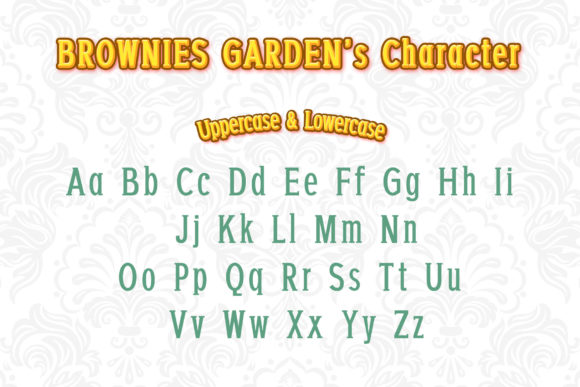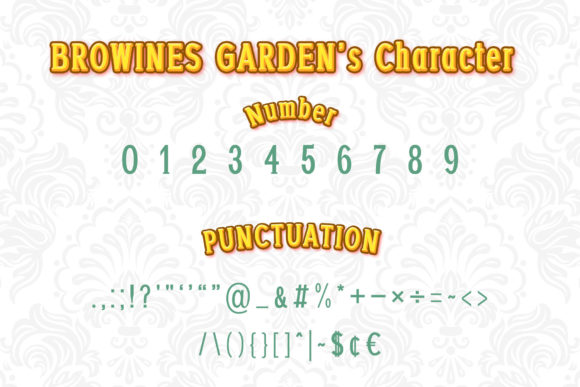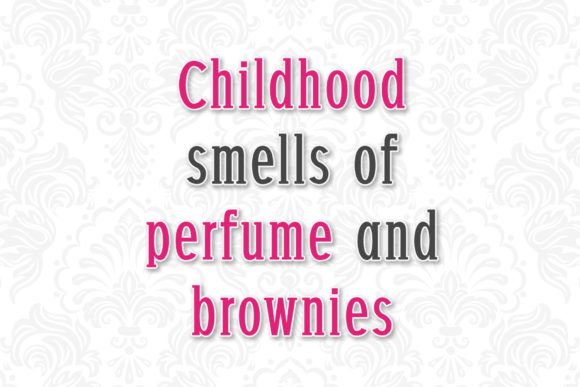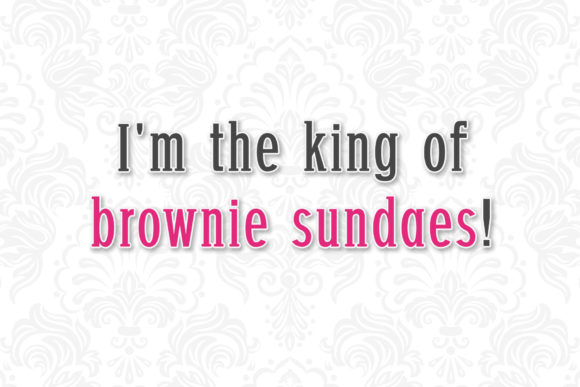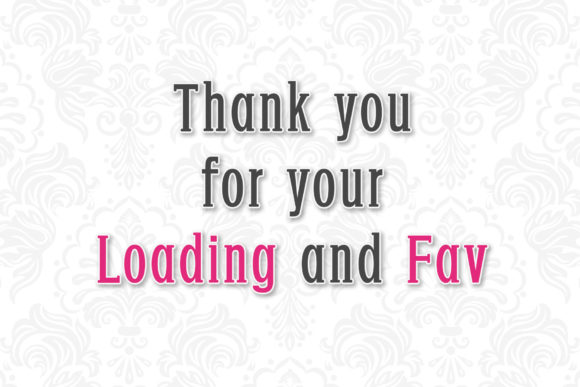
The Perfect Font for Your Creative Projects: Brownies Garden
I’ll never forget the time I was working on a project for a client who wanted a elegant and sophisticated look. I had spent hours browsing through font libraries, but nothing seemed quite right. That was until I stumbled upon Brownies Garden, a neat and elegant serif font that perfectly captured the essence of my client’s vision. In this article, I’ll share my experience with Brownies Garden, its features, and how to make the most of it in your creative projects.
A Personal Review of Brownies Garden
- ✨ Elegant and sophisticated design
- ✅ Highly versatile and can be used in a wide range of projects
- 🔍 Beautifully crafted serif details
- 💻 Works well in both digital and print formats
While Brownies Garden is an excellent font, there are a few things to keep in mind:
- 🤔 Some users may find the font a bit too ornate for certain projects
Brownies Garden comes with a range of OpenType features, glyphs, and stylistic alternates that can enhance your designs. These include:
| Feature | Description |
| Ligatures | Replaces common letter combinations with a single glyph |
| Stylistic Alternates | Offers alternative glyphs for a more customized look |
| Swashes | Adds elegant swashes to your text |
The Story Behind Brownies Garden
Brownies Garden was designed with the intention of creating a font that would bring a touch of elegance and sophistication to any project. The designer aimed to craft a font that was both versatile and beautiful, with intricate details that would make it stand out.
Q: What type of projects is Brownies Garden best suited for?
A: Brownies Garden is highly versatile and can be used in a wide range of projects, from wedding invitations and branding materials to digital platforms and print publications.